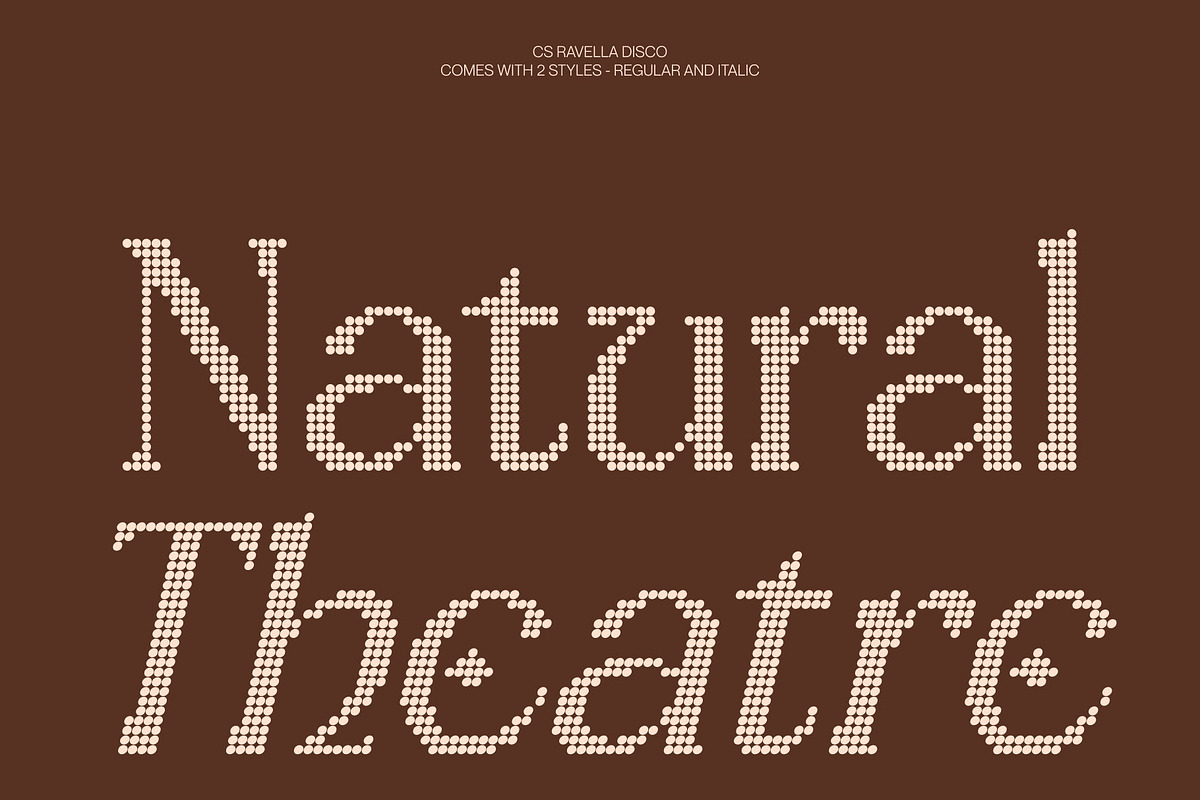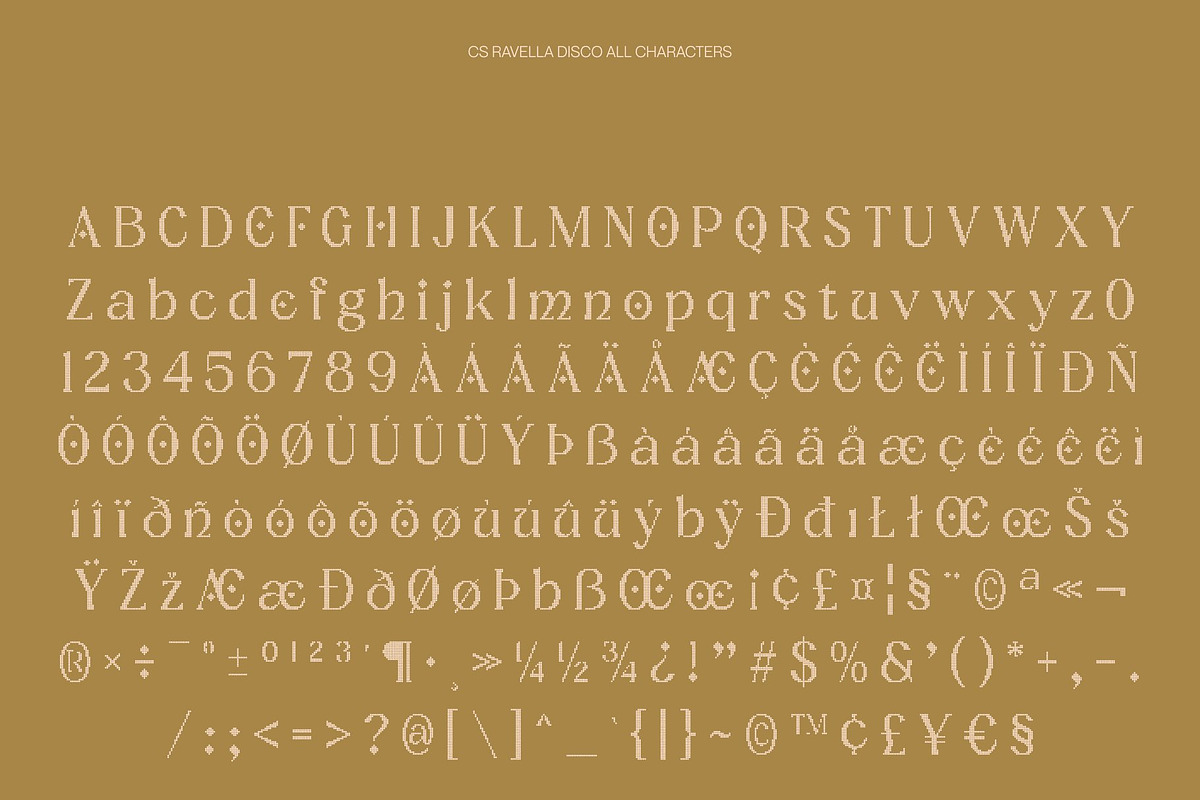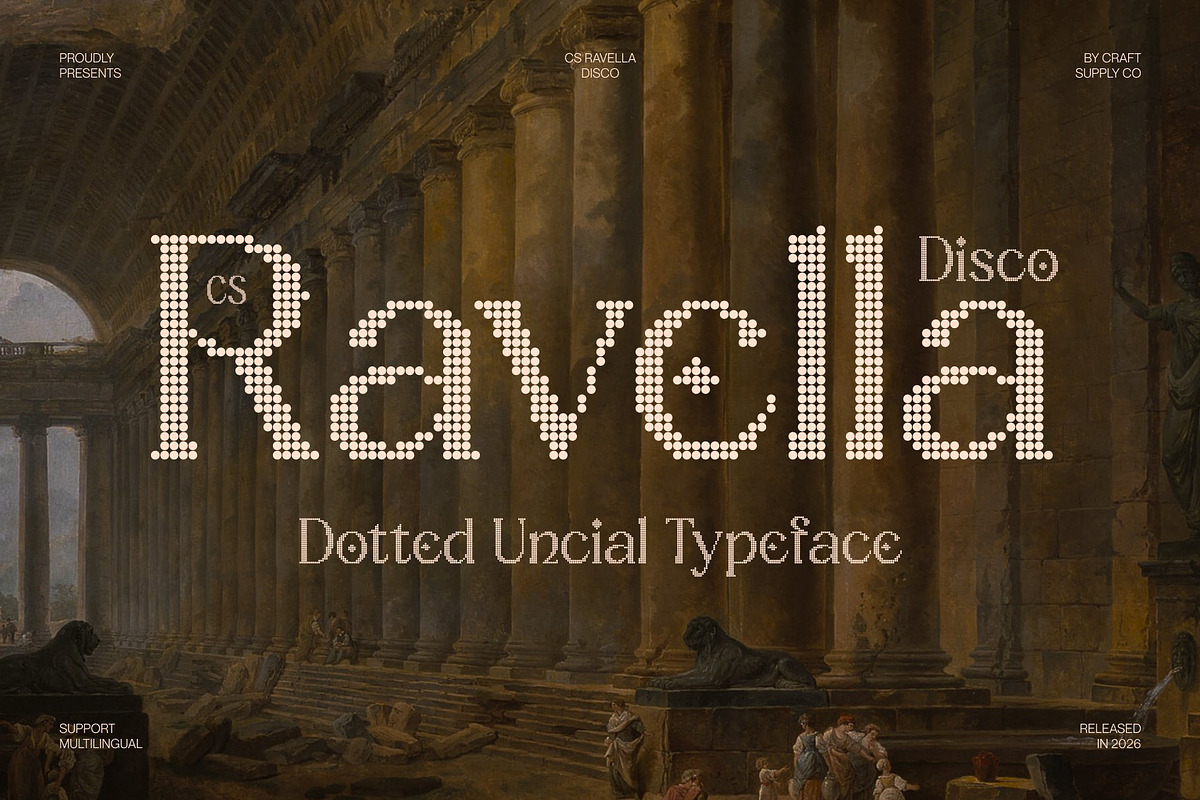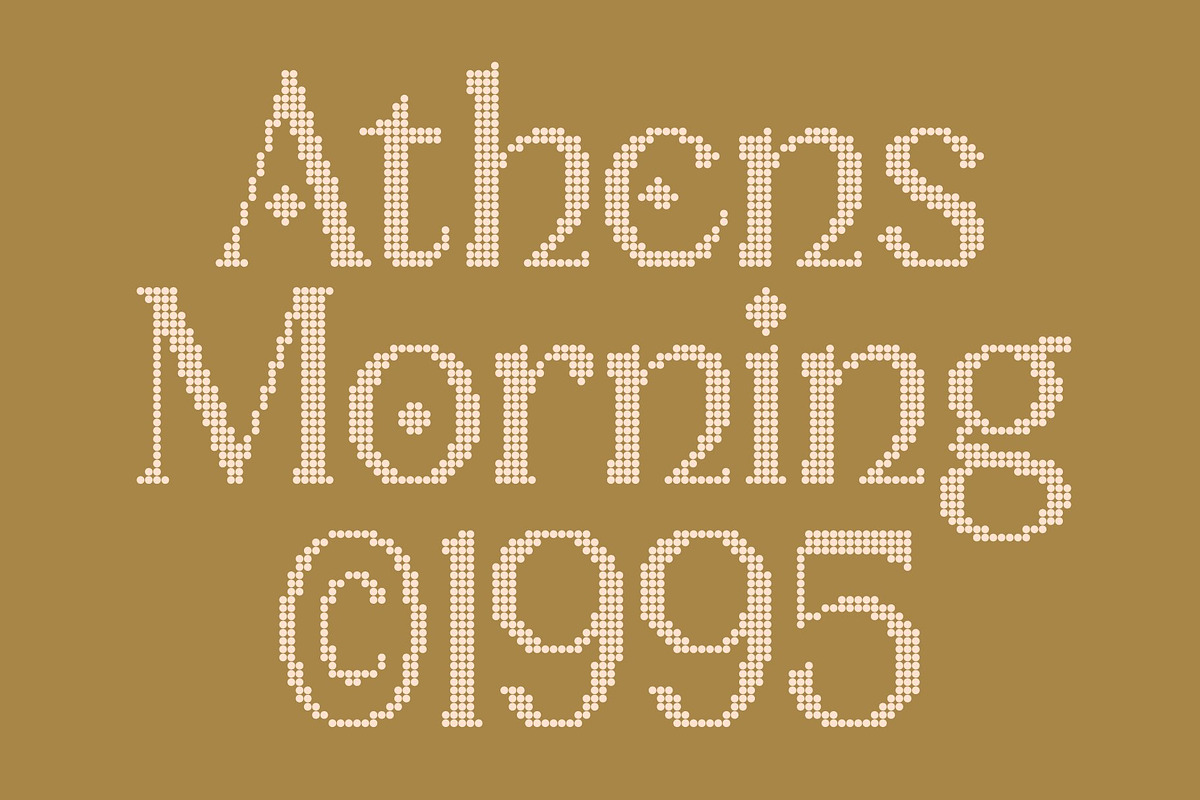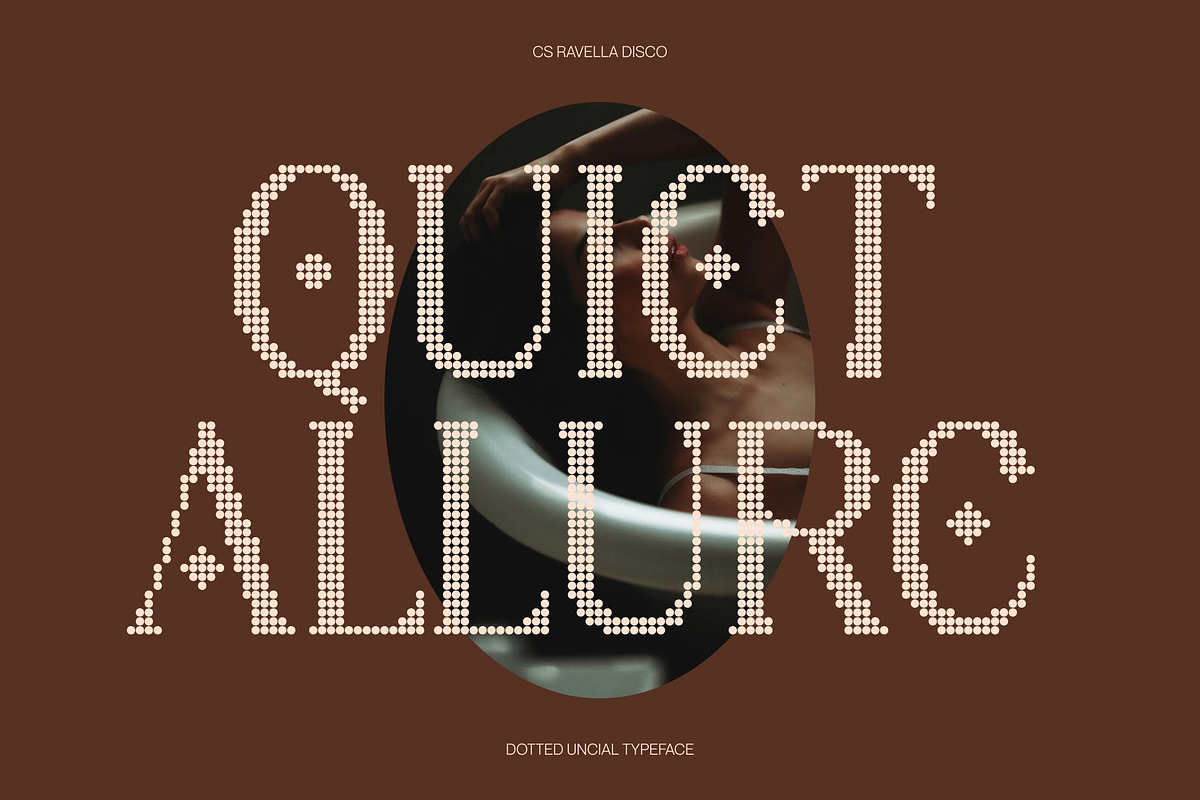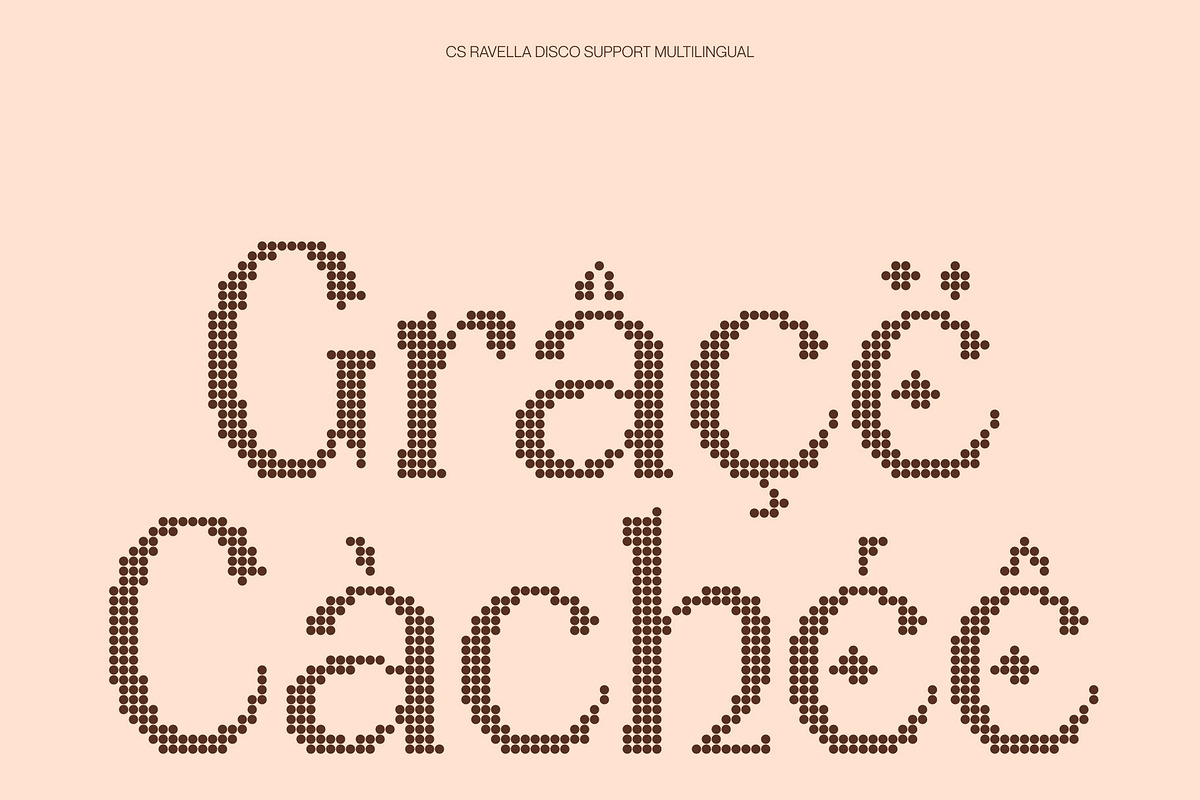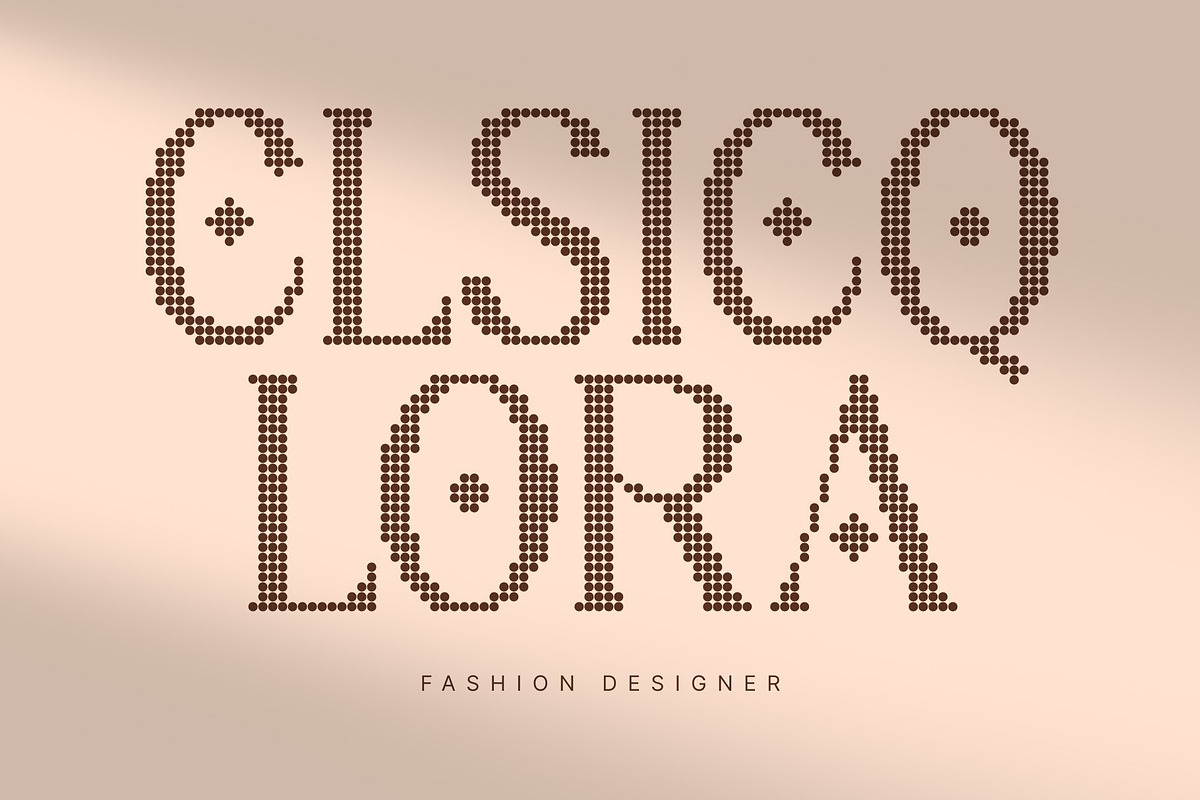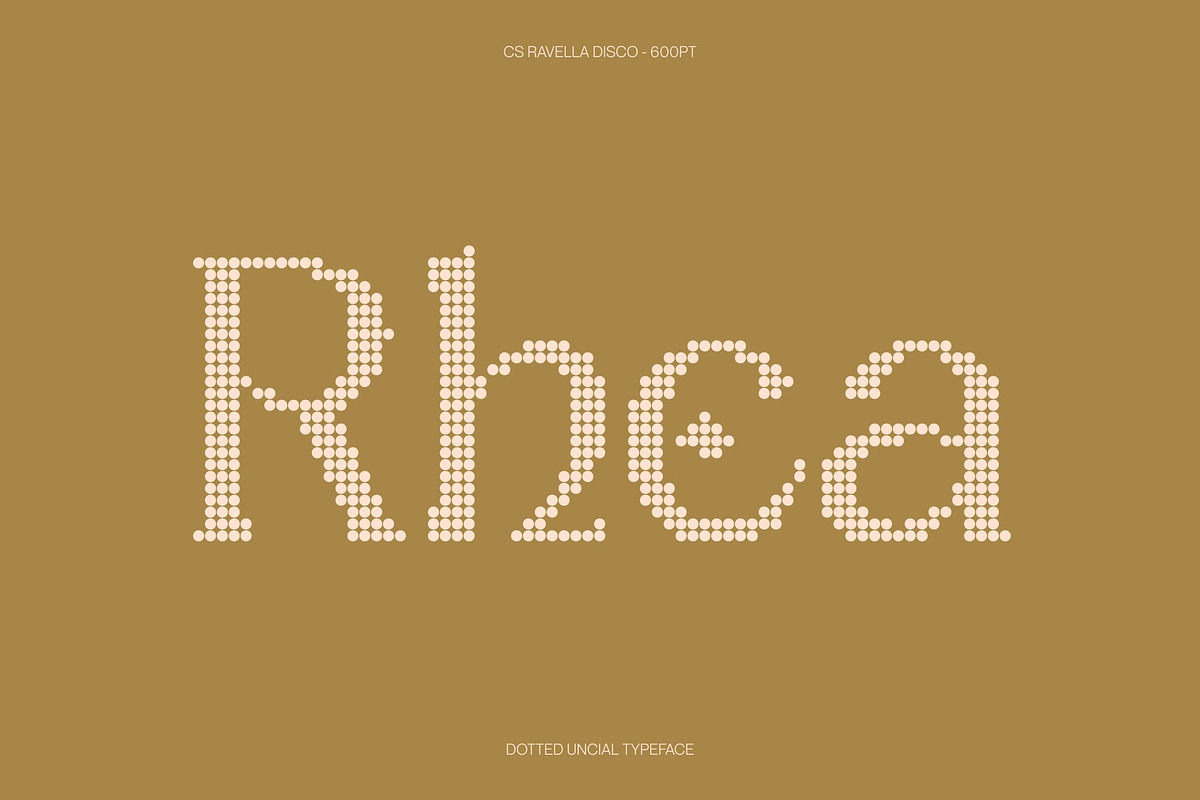
CS Ravella Disco
CS Ravella Disco – Historic Uncial Elegance with Sparkling Detail
Ancient Manuscript Inspiration with Disco Flair This is an uncial-style display font inspired by the timeless artistry of ancient manuscripts, enhanced with a vibrant disco-style dotted texture. Its historic letterforms echo the elegance of early calligraphic writing, while the dotted surface introduces a lively modern twist. This blend creates a unique bridge between classical heritage and contemporary decorative design.
Classic Uncial Forms with Luminous Character The graceful curves and rounded structures of the uncial style give the font a refined and distinctive personality. When combined with the shimmering dotted texture, each character gains visual depth and rhythm, allowing the typeface to feel both historical and visually dynamic.
Elegant Tradition with Creative Expression While rooted in historical typography, this font carries a fresh and expressive presence. The classic structure preserves readability and authenticity, while the dotted disco effect adds playful brilliance that elevates the font into a decorative display style.
Perfect for Luxury, Cultural, and Editorial Projects This font shines in luxury branding, packaging, editorial layouts, invitations, cultural exhibitions, and artistic posters. Its historical elegance brings a sense of depth and tradition, while the sparkling texture adds modern charm that makes designs feel distinctive and memorable.